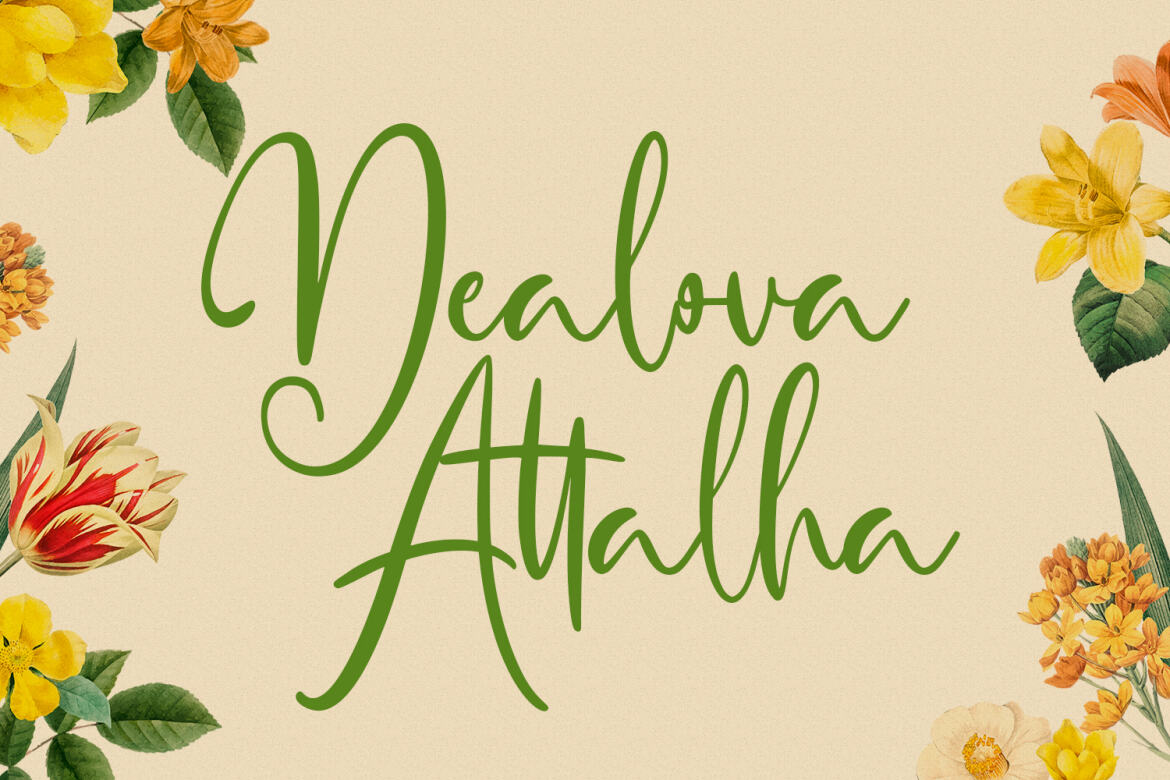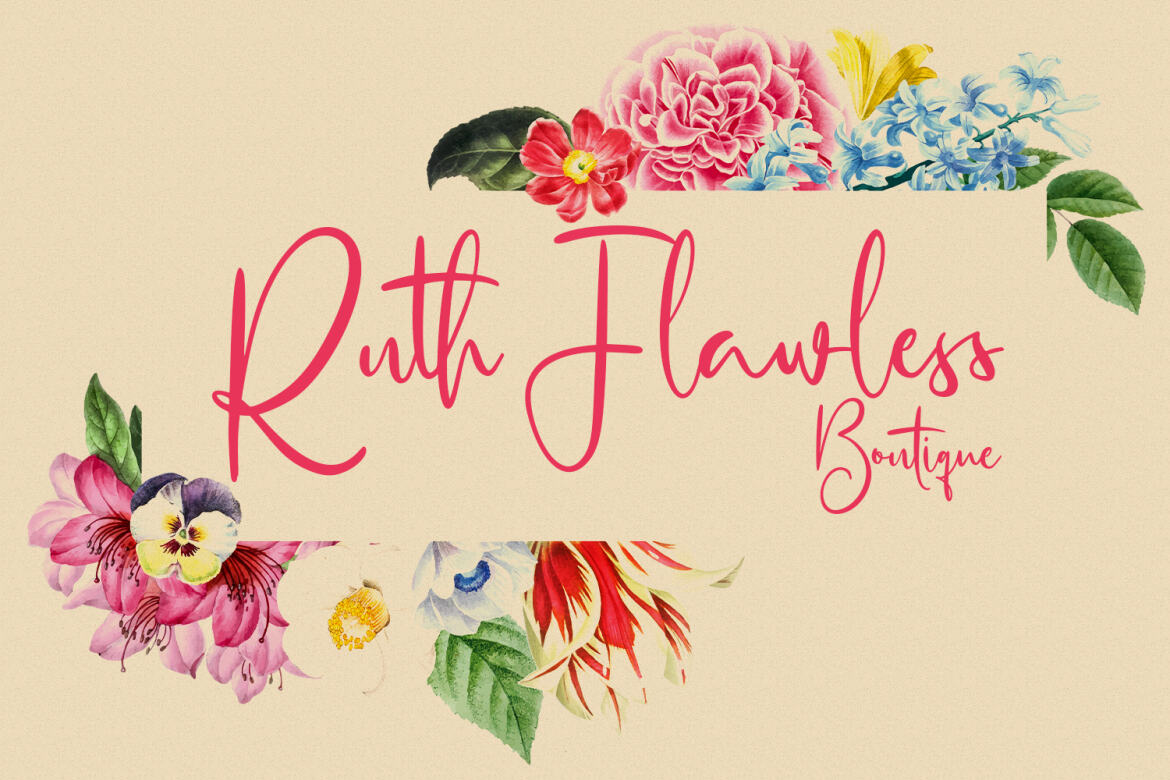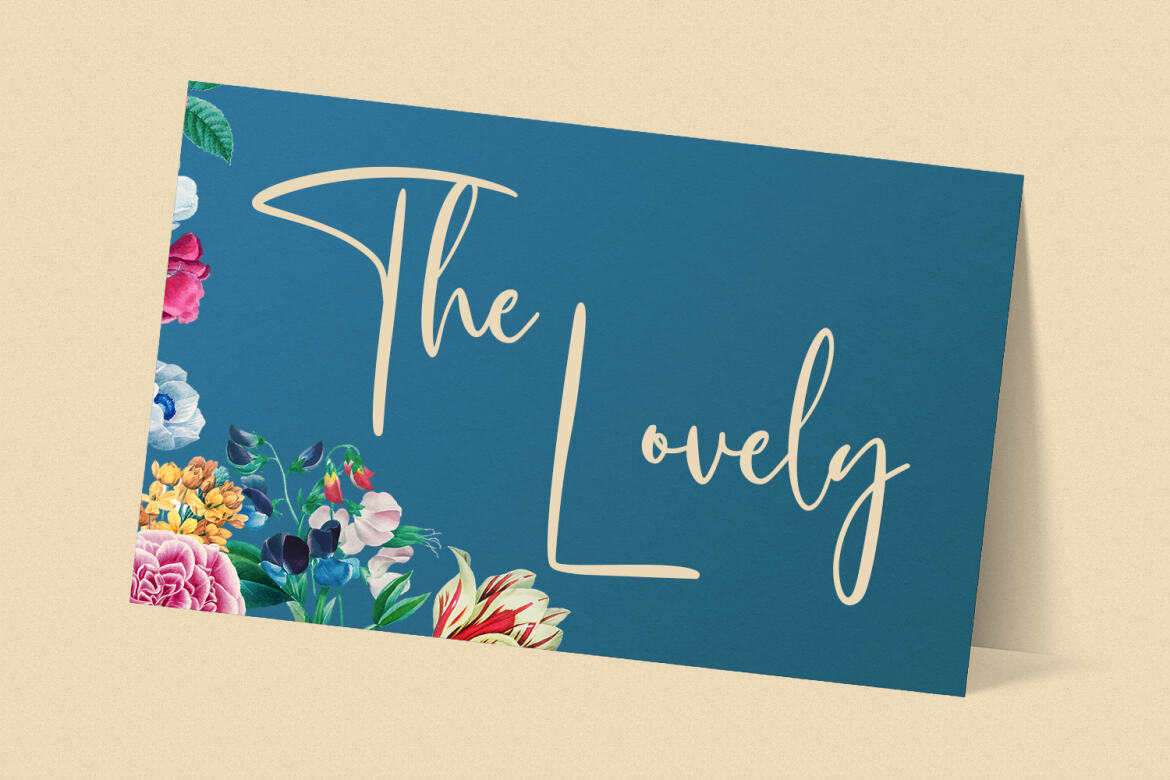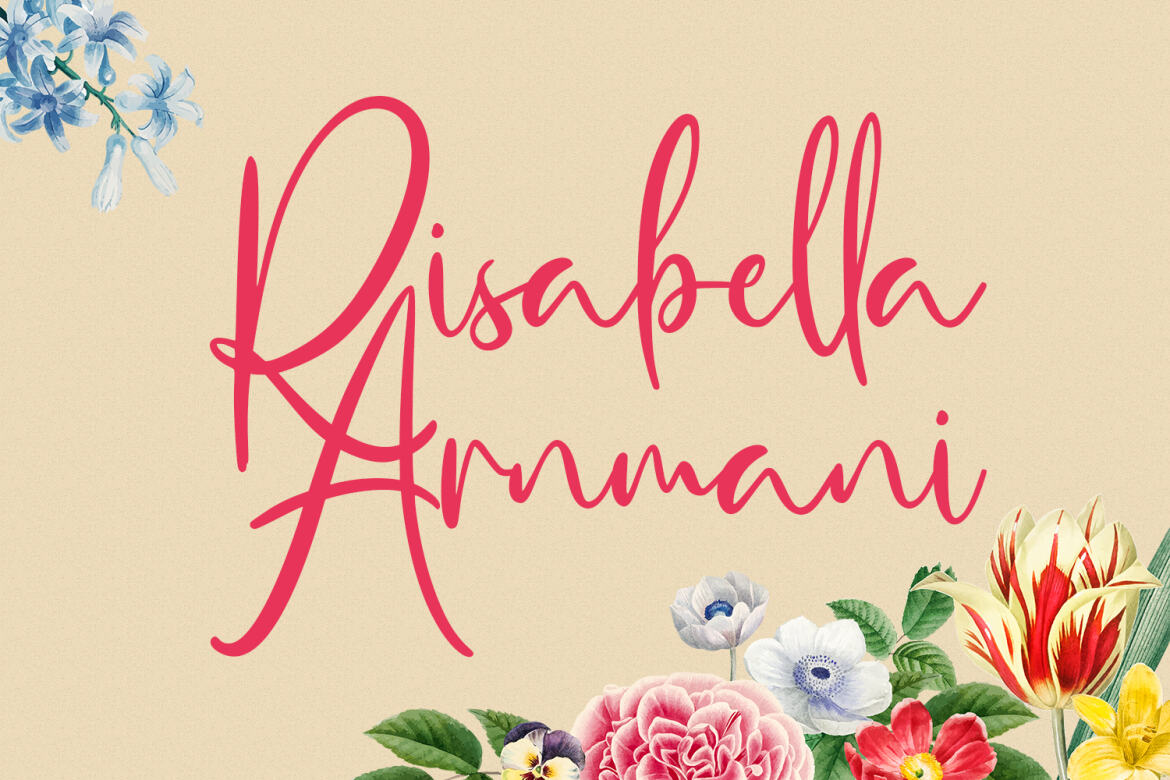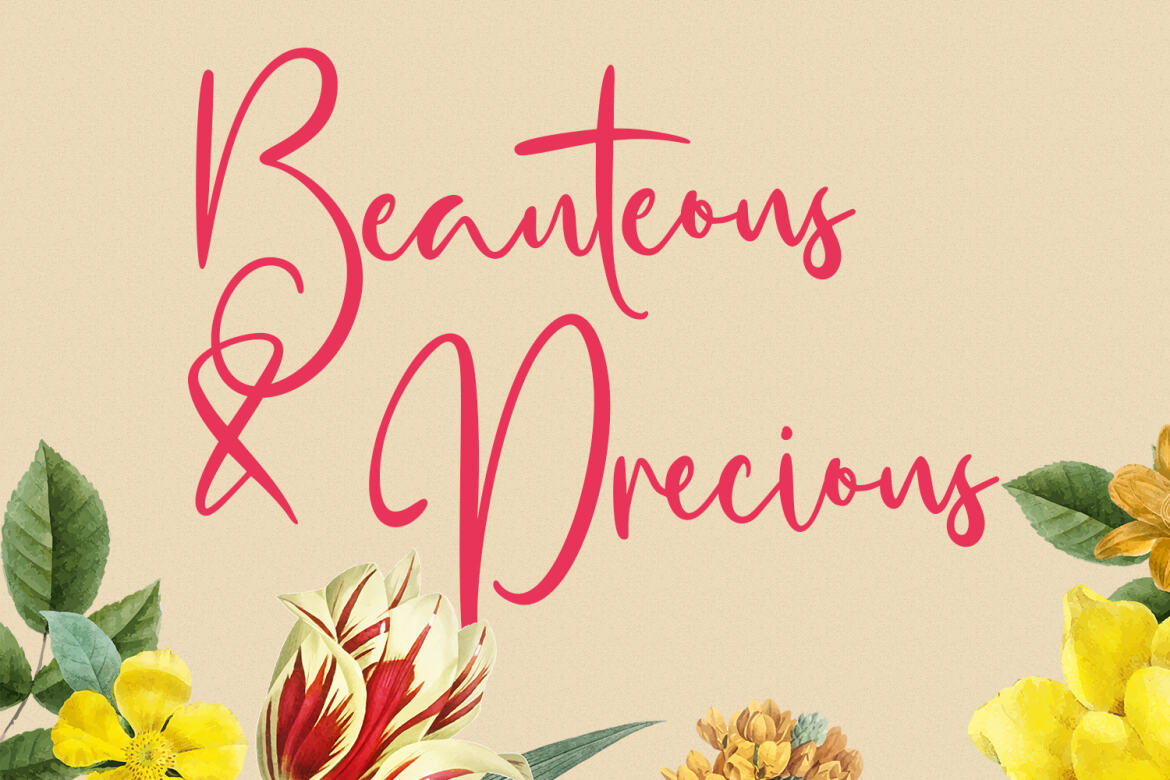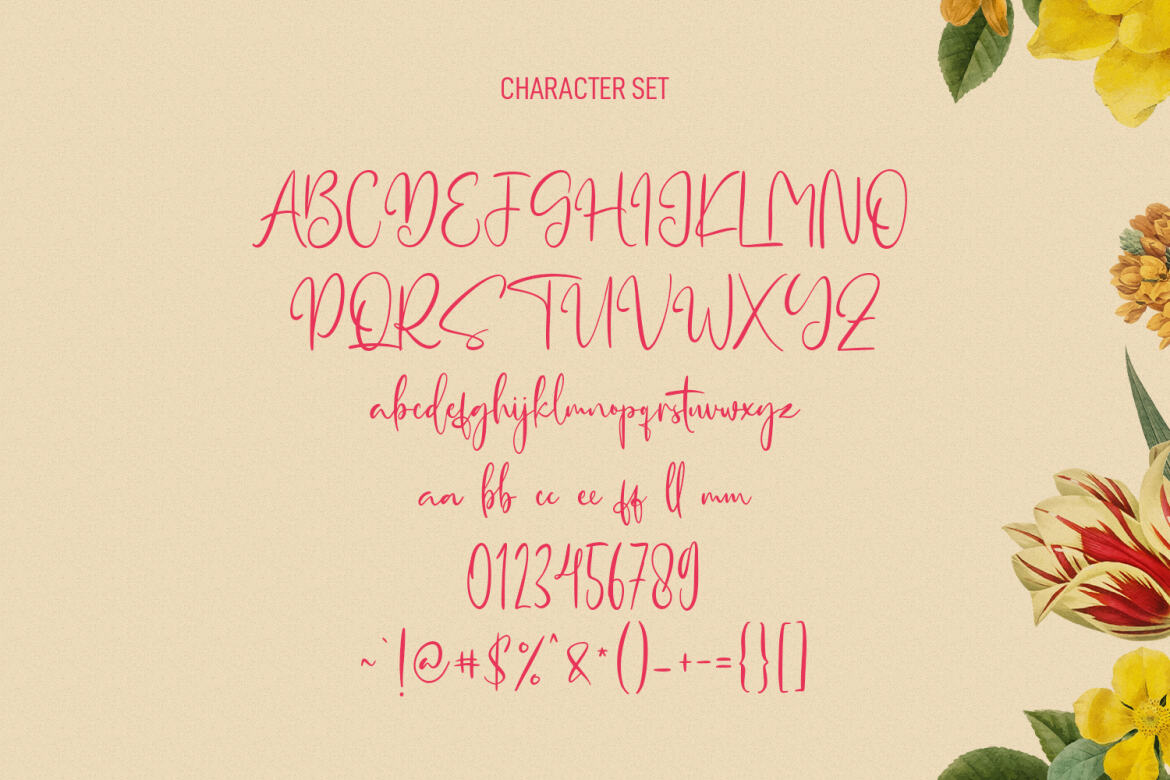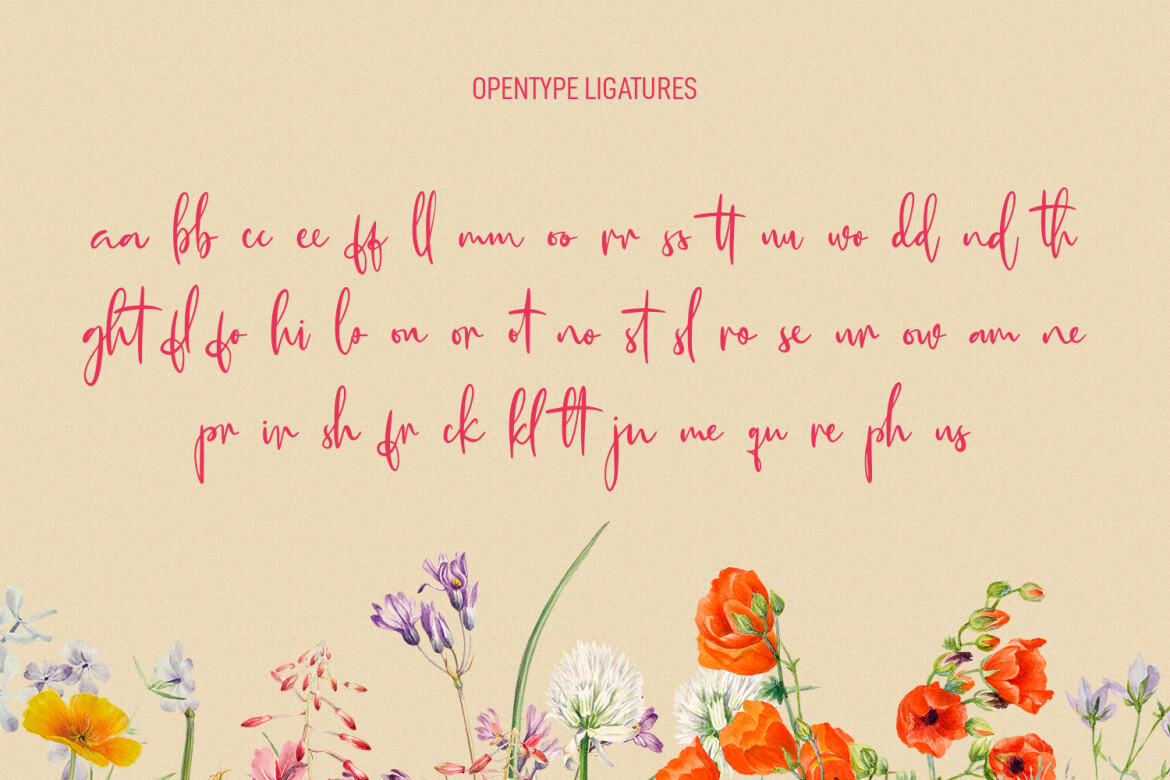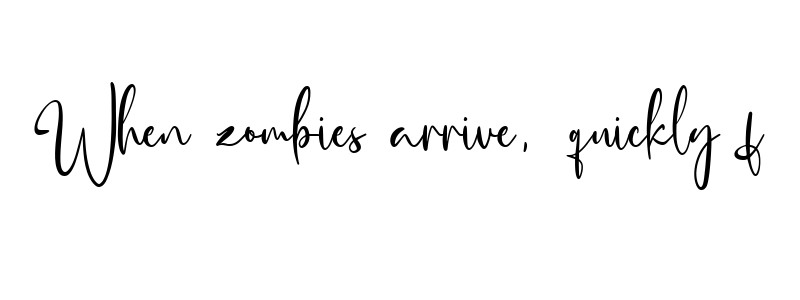
Hellostars Beauty - Free Script Font
Hellostars
Hellostars is a casual script font. With thin stroke, condensed and fun character with a lot of natural ligatures. To give you an extra creative work. Hellostars font support multilingual more than 100+ language. This font is good for logo design, Social media, Movie Titles, Books Titles, a short text even a long text letter and good for your secondary text font with sans or serif. Make a stunning work with Hellostars font.